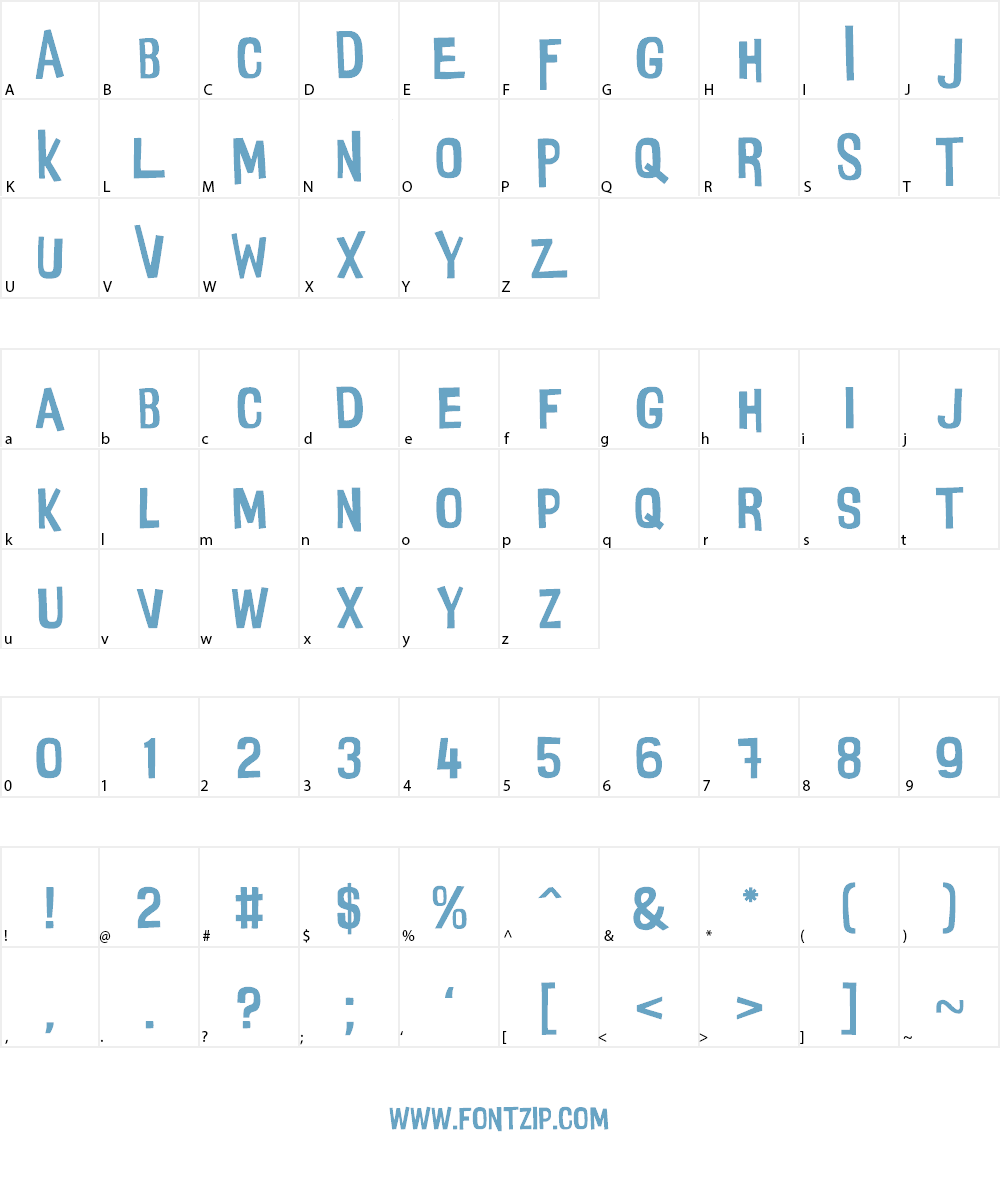
Based off Disney-Pixar's film Inside Out logo, here is the font called "Your Shirt's Inside Out!".
About the Inside Out film: Riley (voiced by Kaitlyn Dias) is a happy, hockey-loving 11-year-old Midwestern girl, but her world turns upside-down when she and her parents move to San Francisco. Riley's emotions -- led by Joy (voiced by Amy Poehler) -- try to guide her through this difficult, life-changing event. However, the stress of the move brings Sadness (Phyllis Smith) to the forefront. When Joy and Sadness are inadvertently swept into the far reaches of Riley's mind, the only emotions left in Headquarters are Anger, Fear and Disgust.